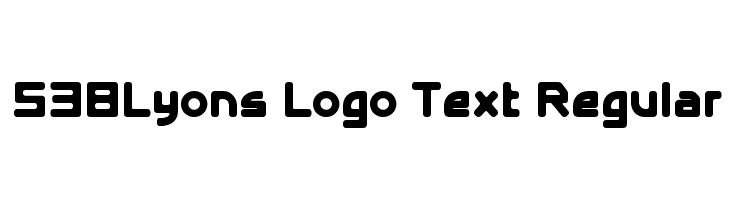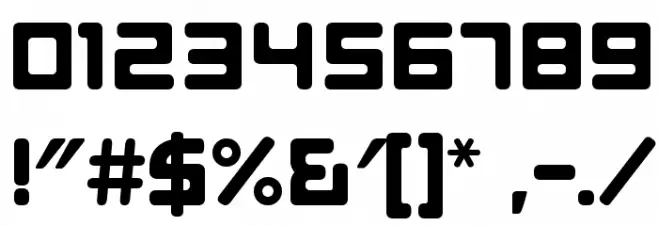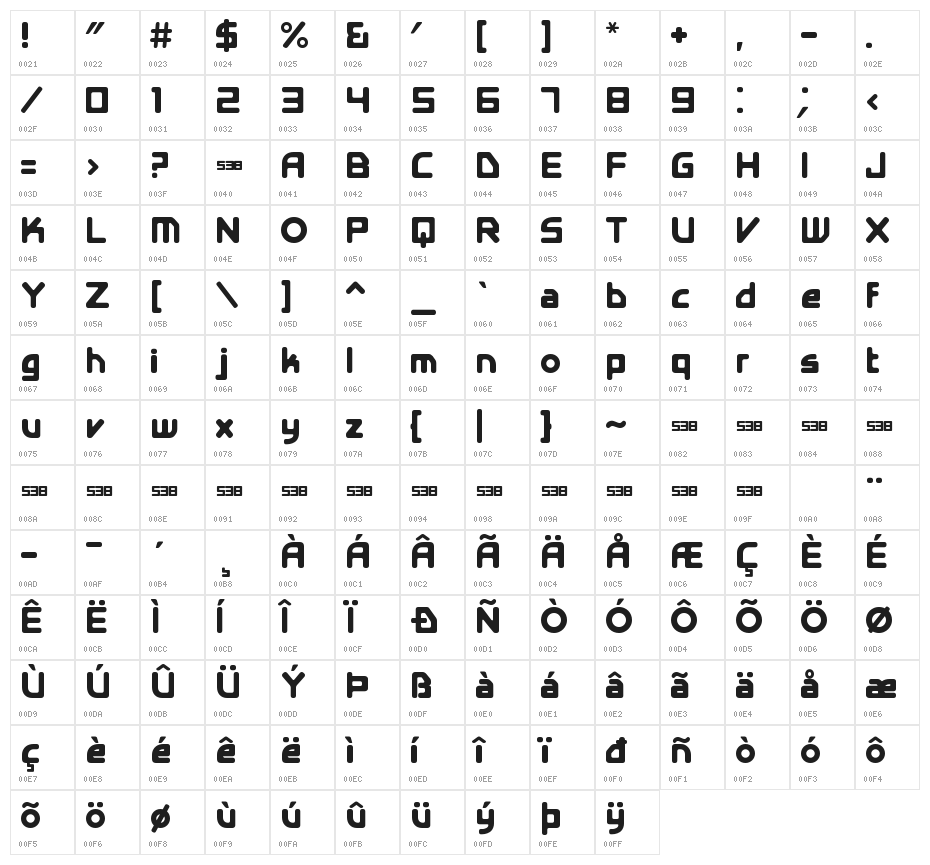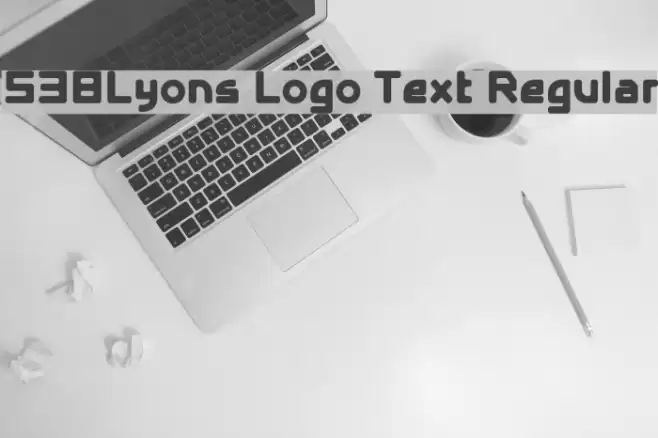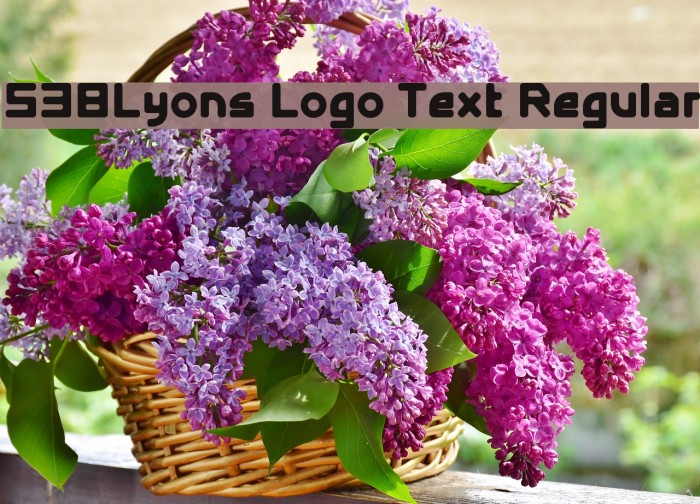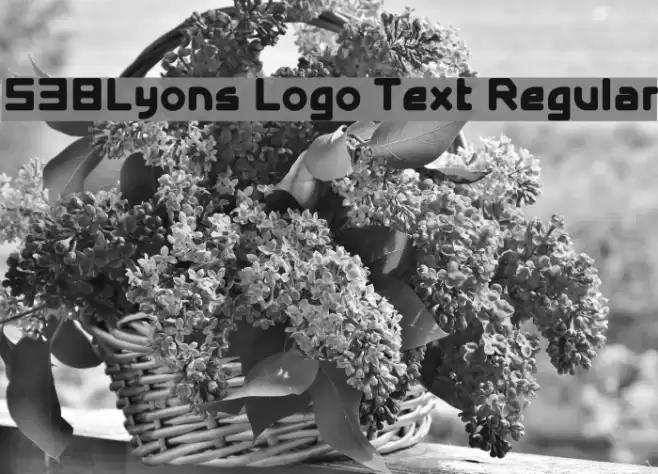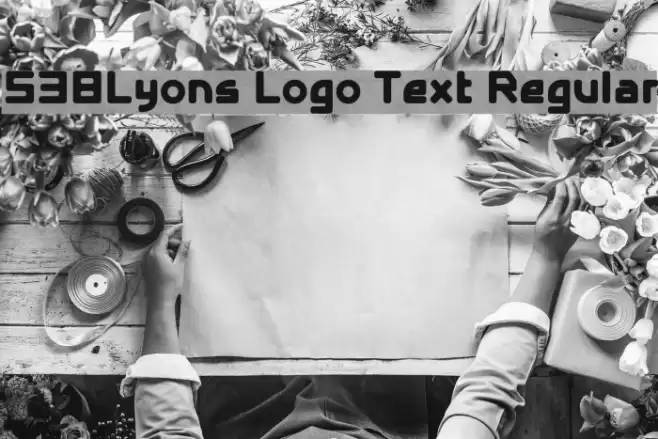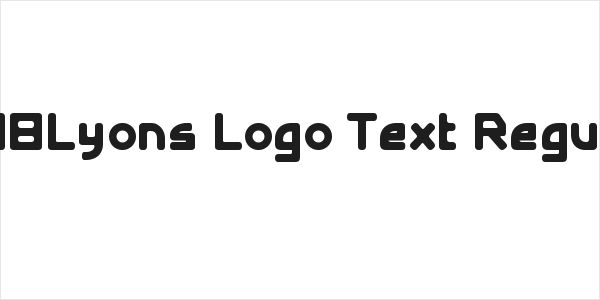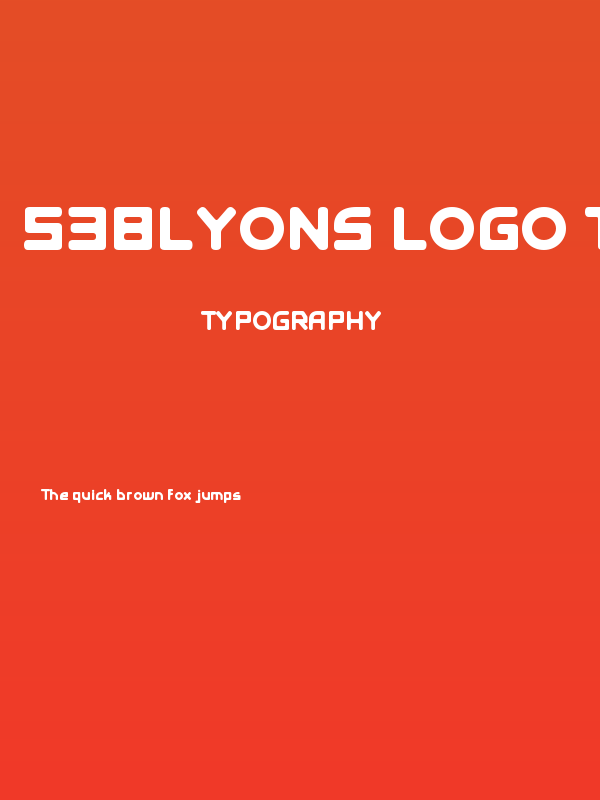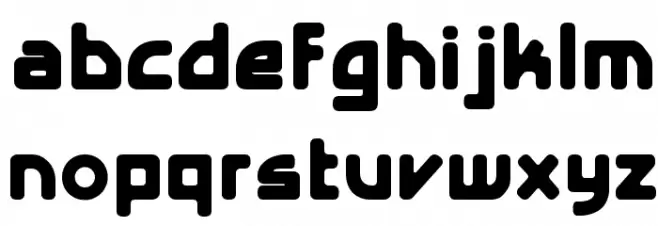
538Lyons Logo Text Regular Font
538Lyons Logo Text Regular Description
This font features a bold, rounded style with a modern and playful appearance. The characters are evenly spaced, with a consistent thickness that gives it a strong presence. The rounded edges soften the overall look, making it approachable and friendly. It includes a full set of uppercase and lowercase letters, numbers, and a variety of special characters, ensuring versatility for different design needs. The uniformity in stroke width and the absence of sharp angles contribute to its contemporary feel, making it suitable for a wide range of applications.
| Use Case | Logos, Headlines, Branding |
| Proposed Projects | Ideal for logos, branding, children's books, and playful design projects. |